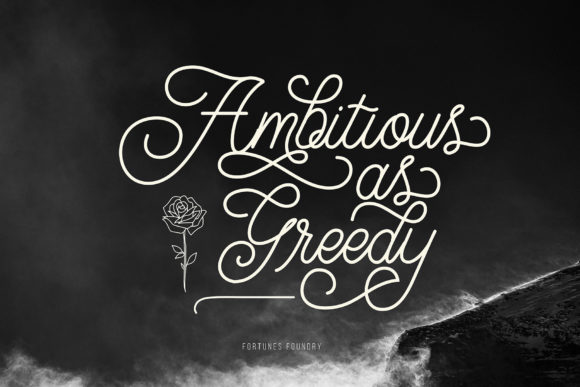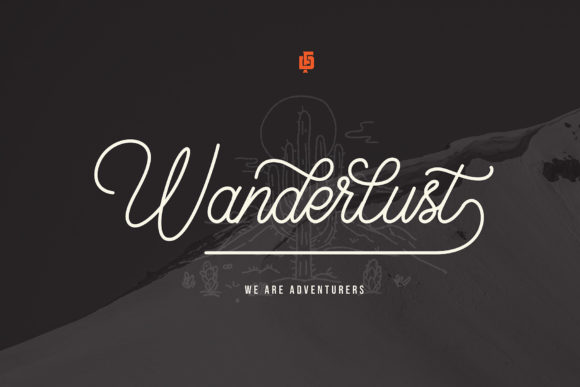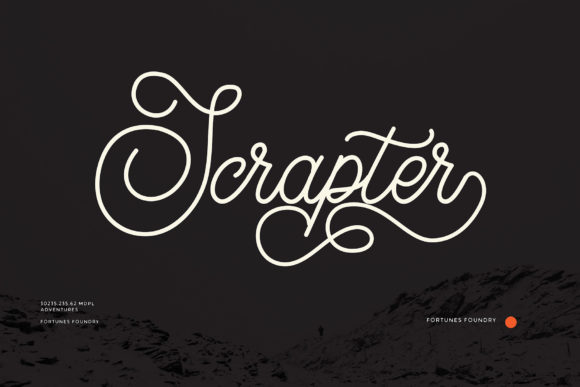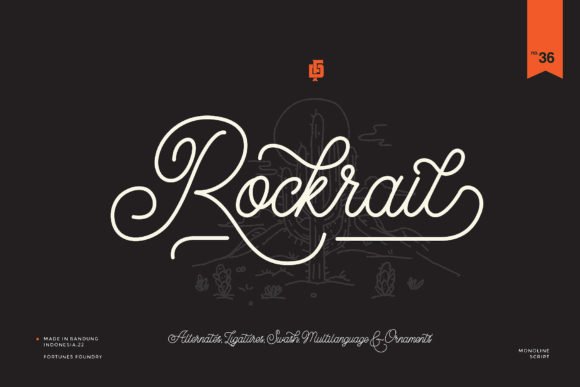
Introduction to Rocktrail Script Font
Rocktrail Script is a vintage styled and delicate script font.
It is perfect for any branding project such as logos, t-shirt printing, creative products, and more It will look extraordinary in a variety of contexts.
Key Features of Rocktrail Script Font